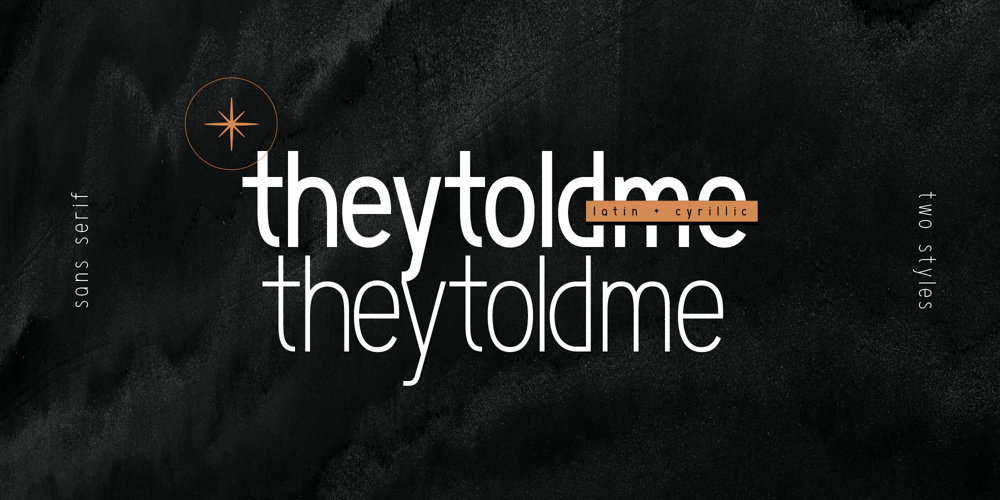
Theytoldme Font Family was designed by Antonina Chikhiro and published by Chikhiro. Theytoldme contains 2 styles and family package options. Theytoldme is a thoughtfully designed font that embodies simplicity and minimalism, making it an ideal choice for conveying smart and witty sayings on various platforms. This sans-serif font boasts a clean and straightforward aesthetic, allowing the content to take center stage while maintaining readability.The font is equipped with multilingual support, accommodating both wide Latin and Cyrillic alphabets. This inclusivity ensures that your messages can be effectively communicated to a diverse audience, making it suitable for a global reach.With two distinct styles, medium and extra light, Theytoldme provides flexibility for different design preferences. The medium style adds a touch of boldness, making statements stand out, while the extra light style maintains an airy and delicate appearance, offering a subtle touch for a more refined look.Theytoldme font was created specifically for a blogger who conveys smart and humorous phrases beginning with words: they told me… That is why it will perfectly suit a variety of digital mediums. Whether it’s blog posts, social media posts, or video subtitles.Theytoldme ensures that your content is not only visually appealing but also easily digestible for your audience. Its versatility and readability make it an excellent choice for delivering engaging and witty content across different platforms.